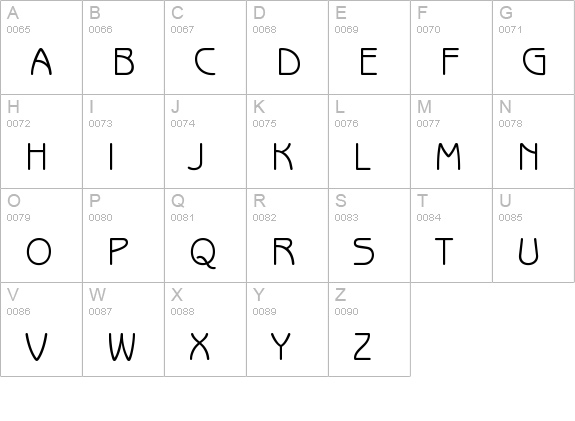
BenguiatGothicEF-Book is a comfortable, highly readable variant in the BenguiatGothicEF typeface family \xE2\x80\x94 well suited to long-form body text, articles, and editorial content.
BenguiatGothicEF-Book is a timeless and versatile font that exudes a classic elegance with a modern twist. Its clean lines and sharp edges make it perfect for a wide range of design projects, from branding to editorial layouts. The sophisticated yet approachable look of this font is sure to make a statement and captivate your audience. What sets BenguiatGothicEF-Book apart is not only its aesthetic appeal but also the fact that it is available for free download at FontsMarket.com. This means that you can easily access this high-quality font to enhance your creative projects without any additional cost. Whether you're a designer, a student, or a business owner looking to elevate your branding, BenguiatGothicEF-Book is a fantastic choice that won't break the bank. Download it today and start creating stunning designs that leave a lasting impression.